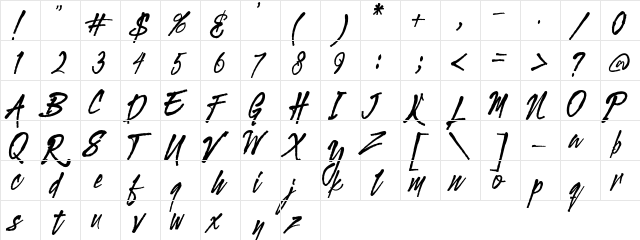
Gloucester Brush Script
StyleBrush Script
DesignerCandi Erwanto
Design Context for Gloucester Typeface
Gloucester brings a calligraphic fluidity to the page — its connecting strokes and expressive curves give it an unmistakably human quality.